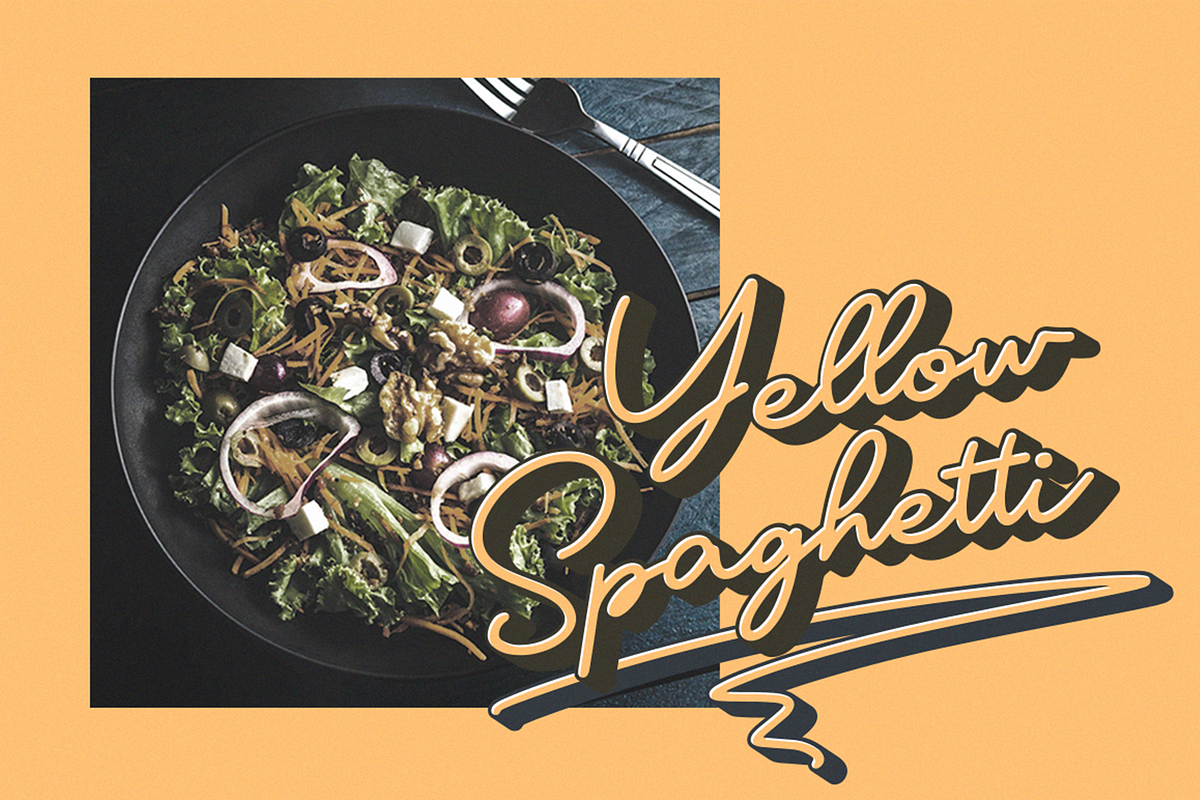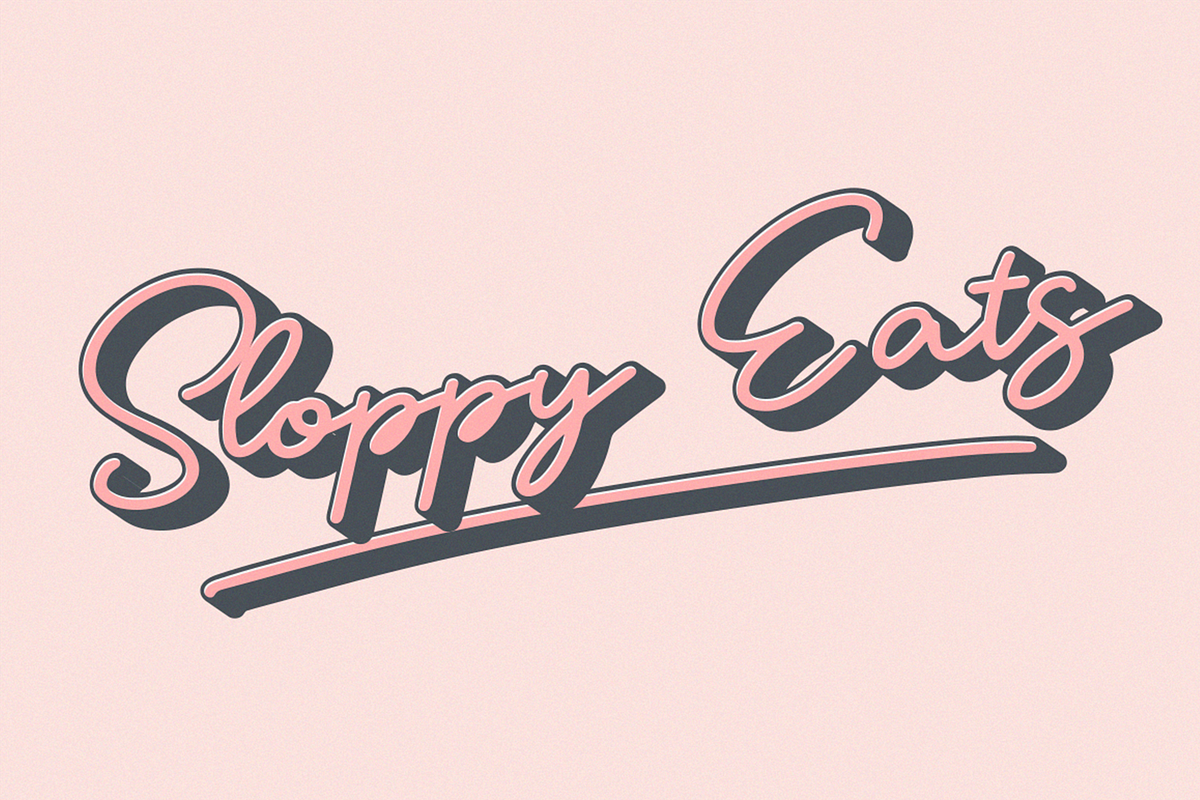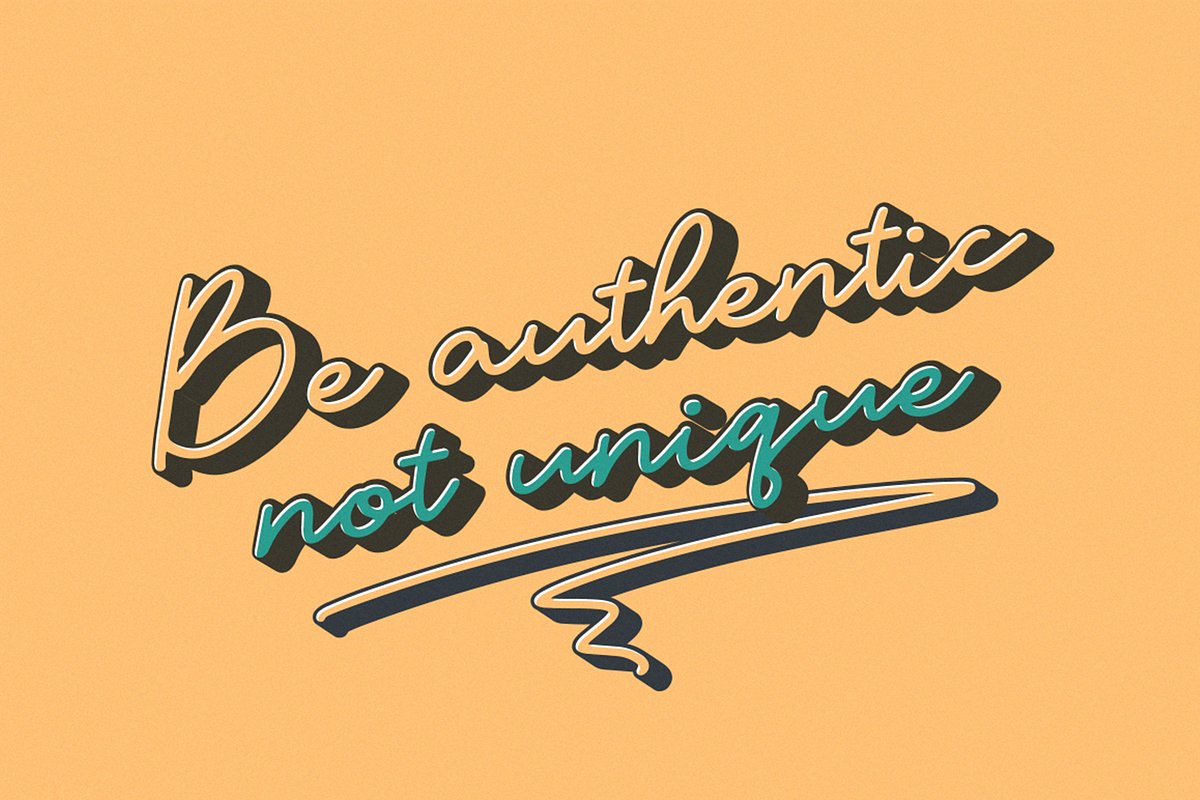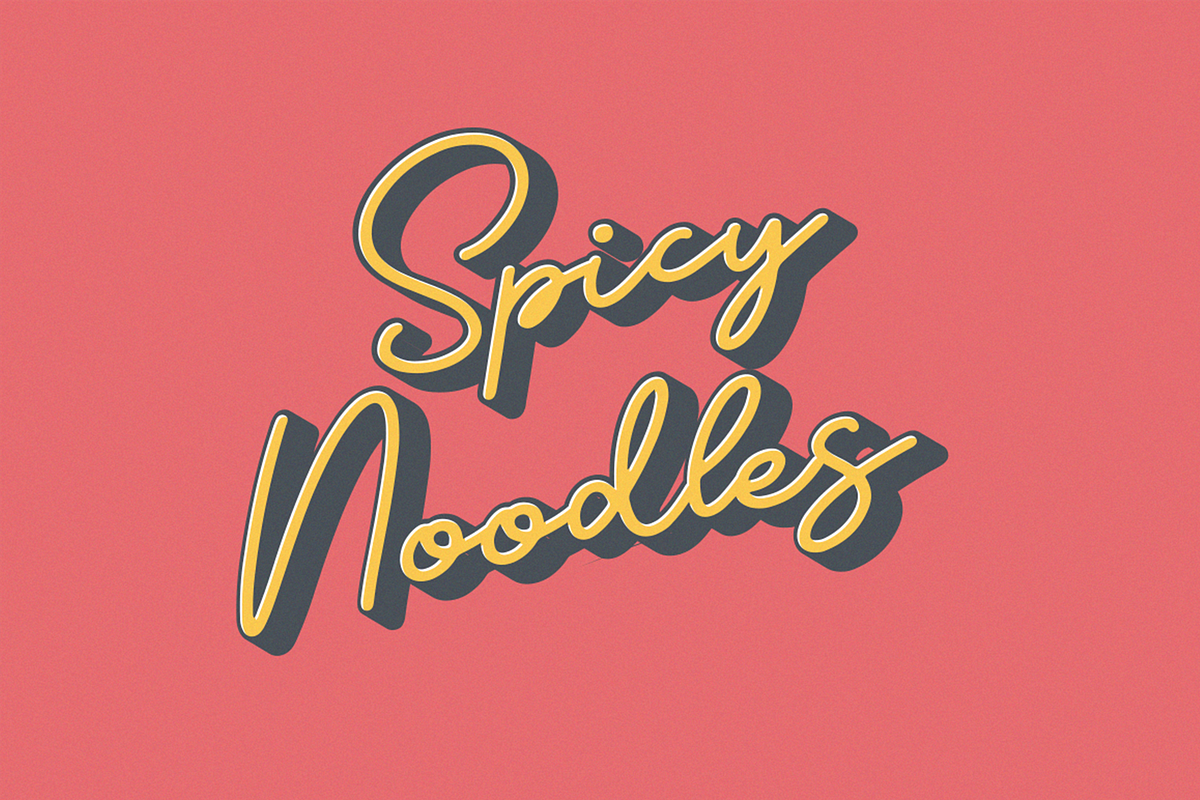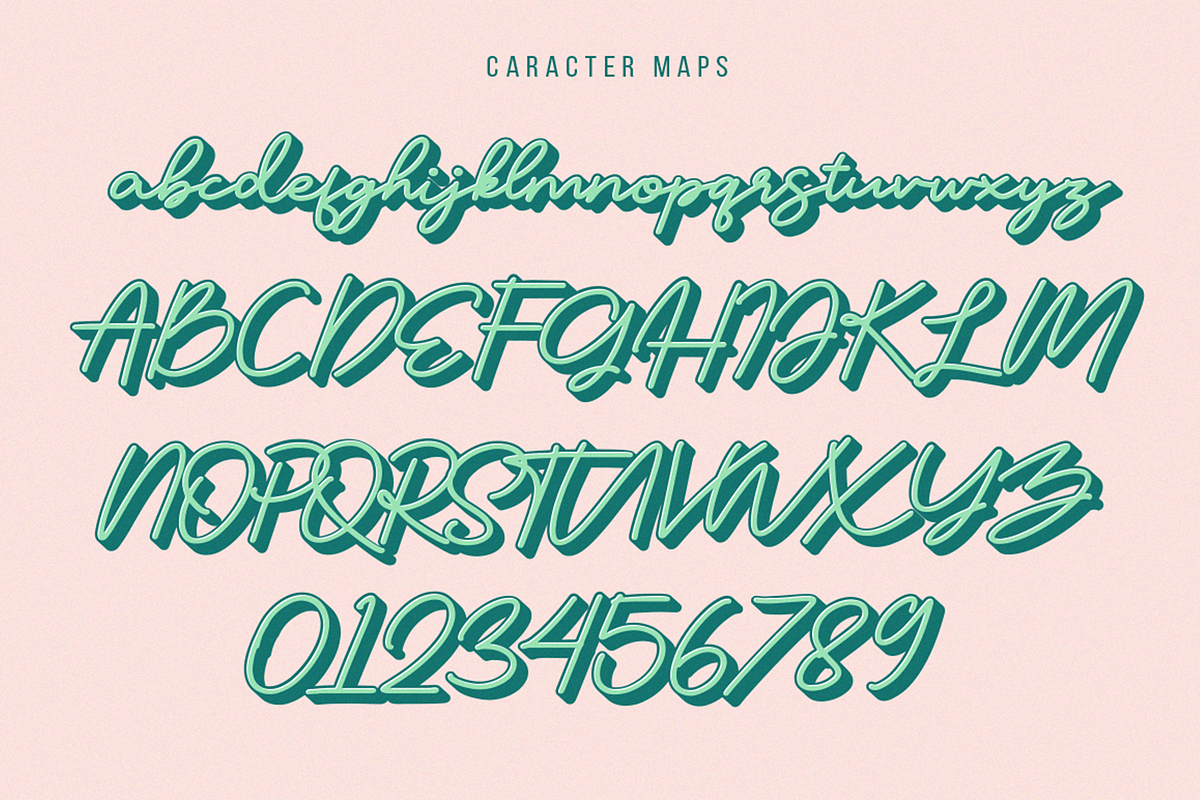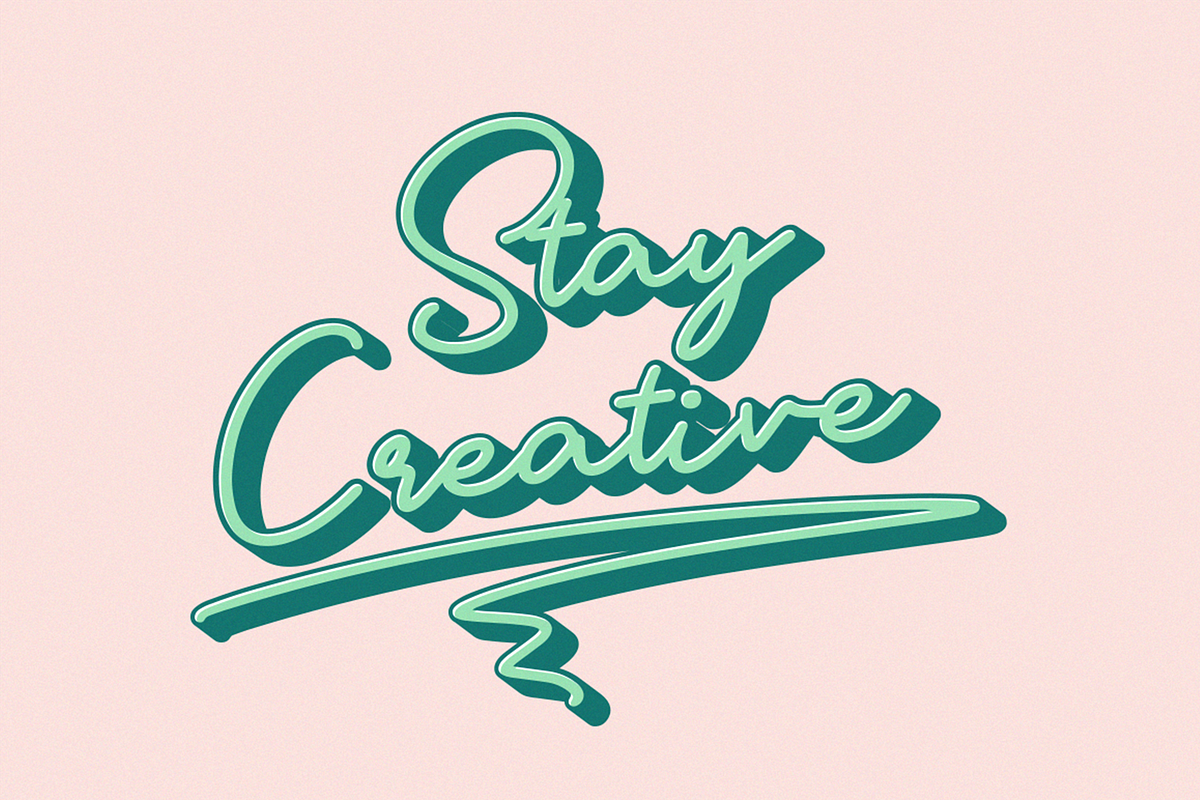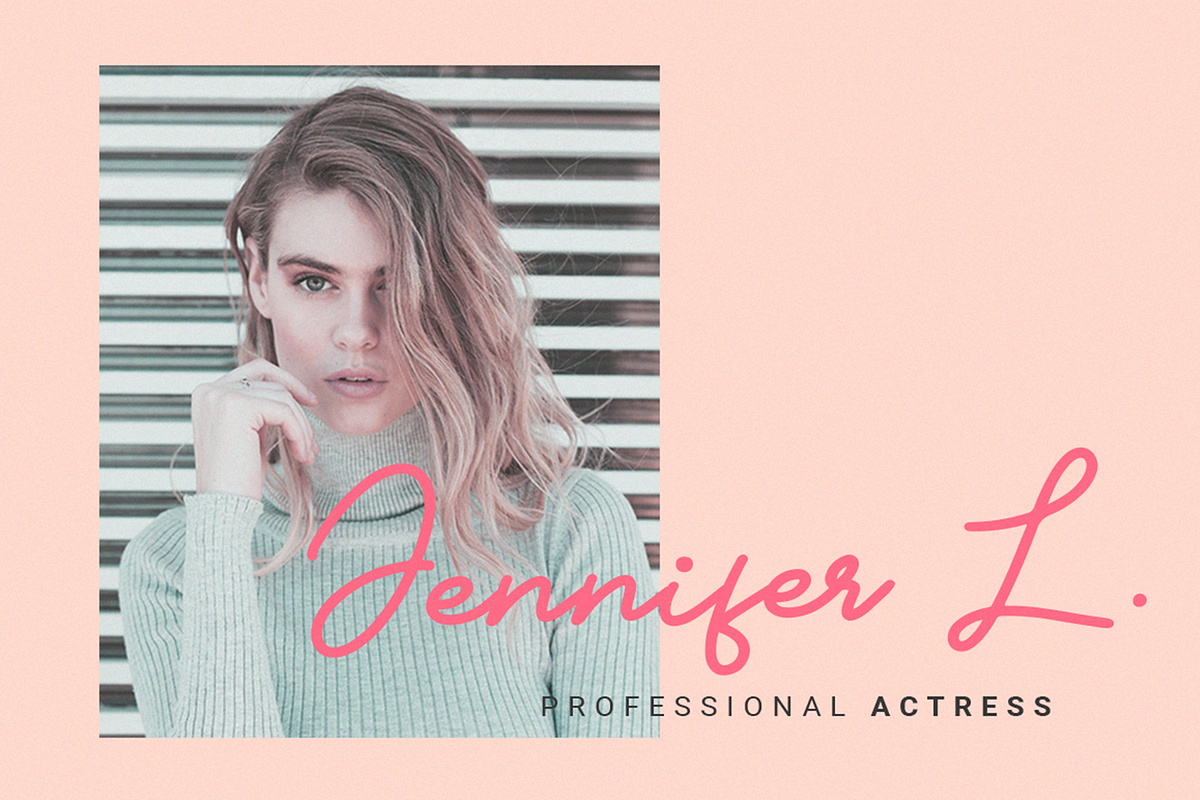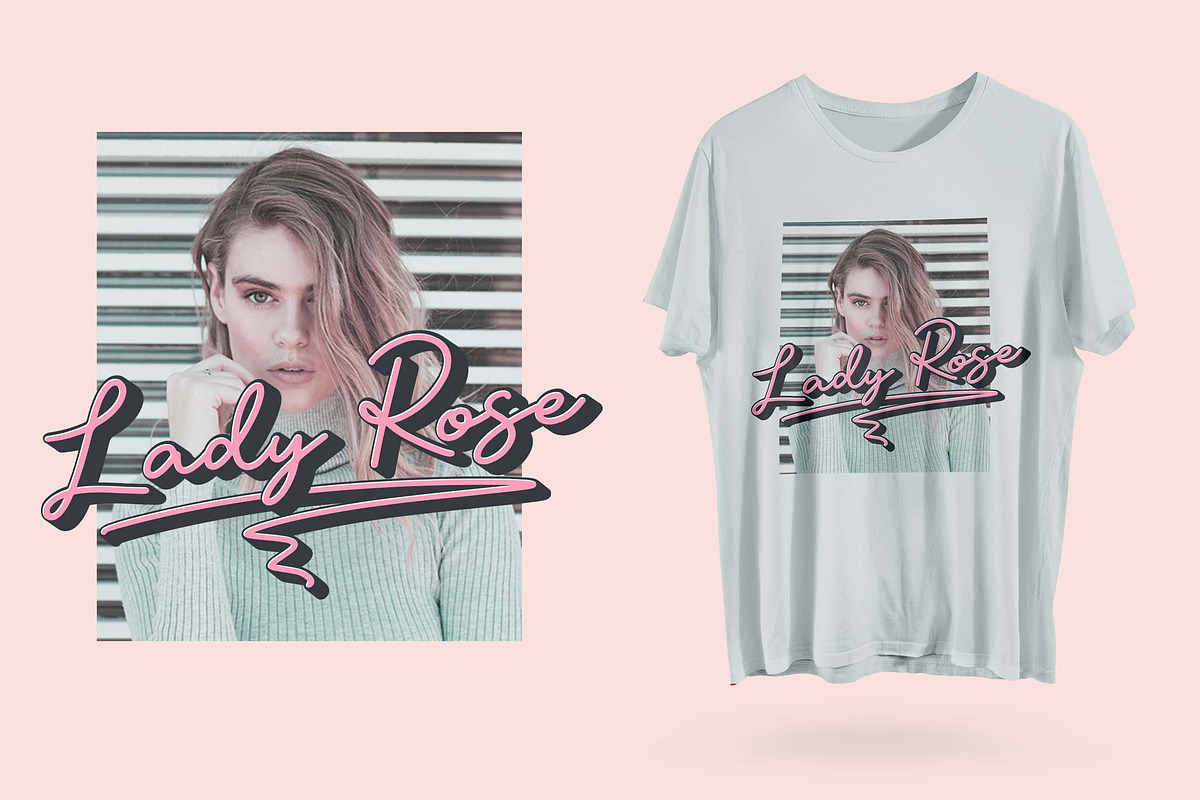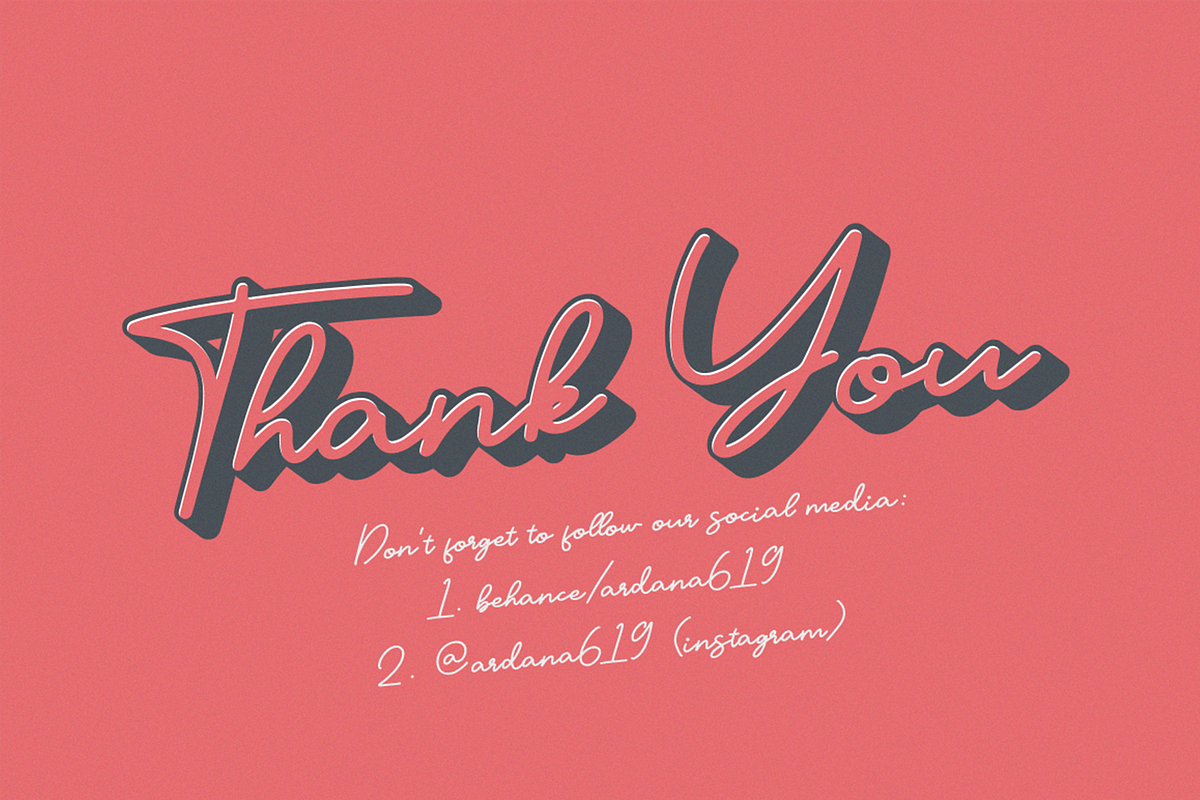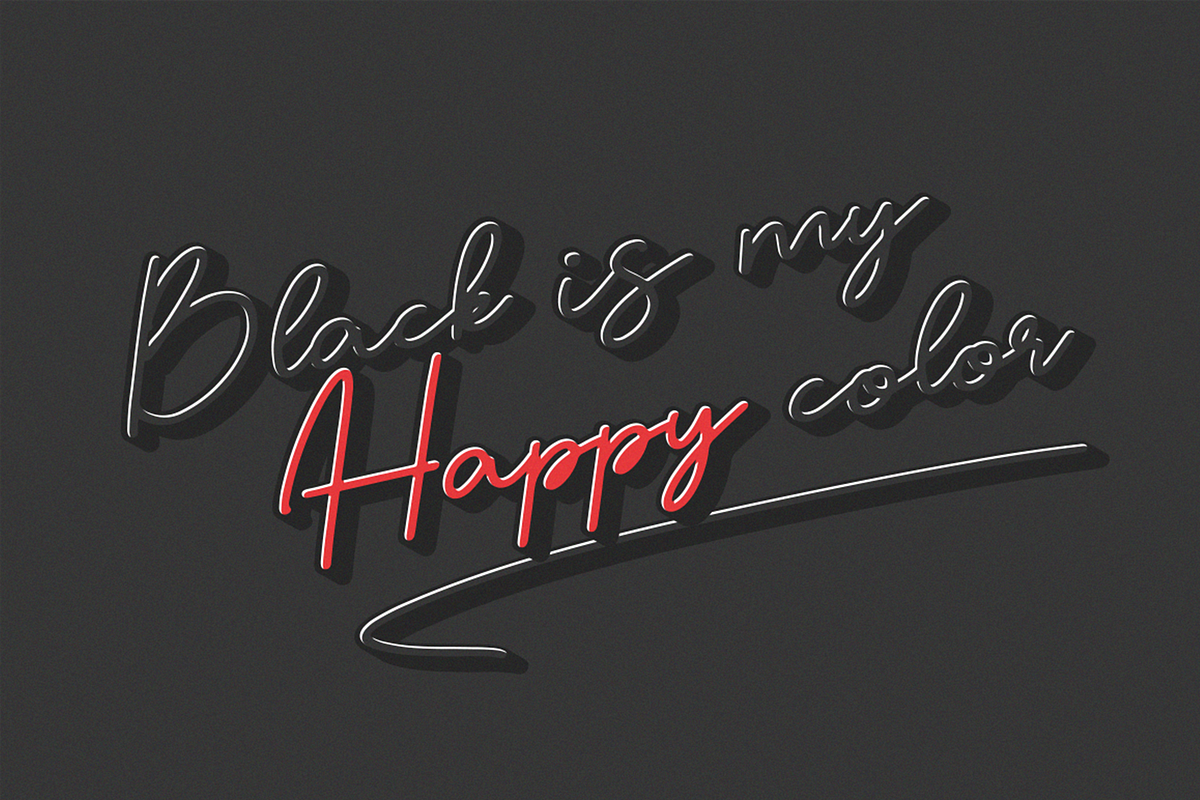
Geofanny | Monoline Layered Script
Geofanny is clean monoline script font that has layered features and OpenType features. Use this typeface to make your design vintage-like. Not only that, but you can also use this without layered font to make the more feminine and cute design. This font is good for vintage design, t-shirt, logos, labels, badges, posters, branding design, blog headers, signatures, quotes, fashion apparel, business card, stationery, and many more.
Geofanny features:
A full set of upper & lowercase characters
Multilingual language support
OpenType Features